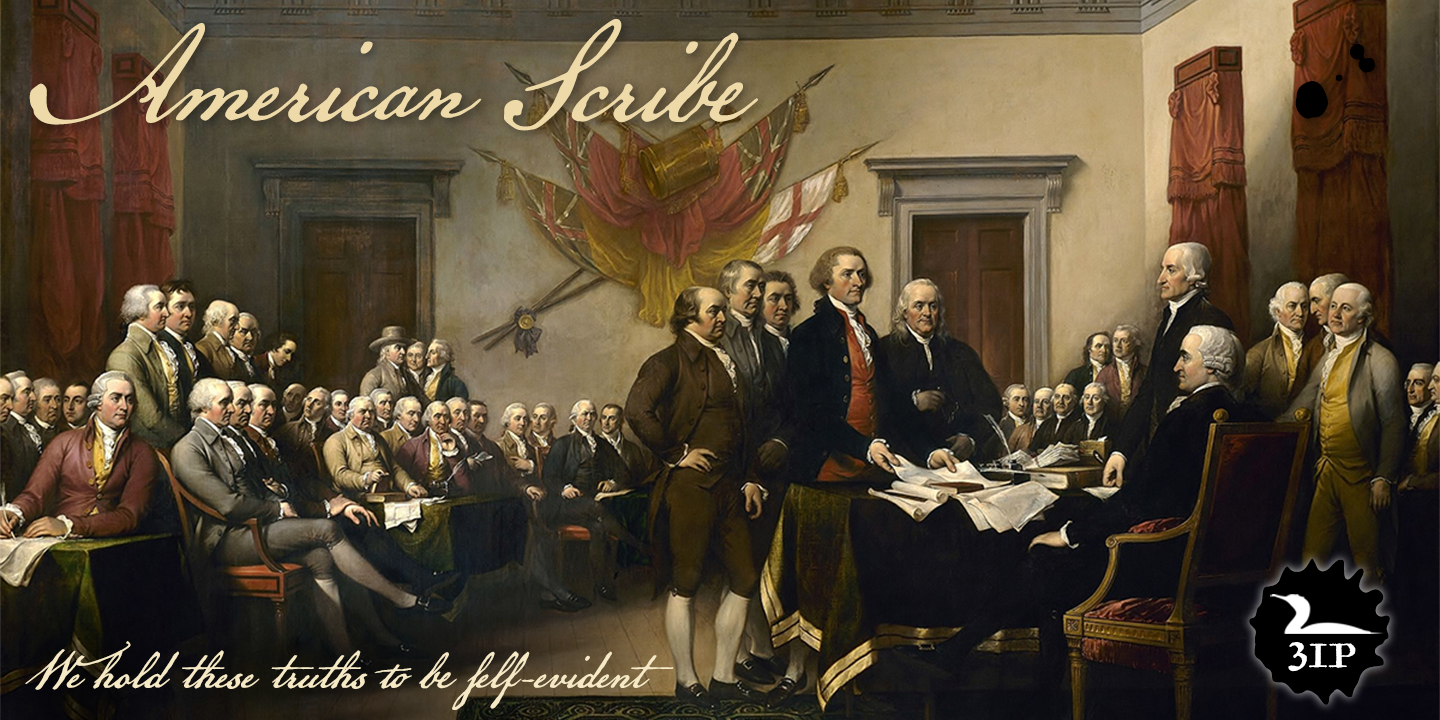
American Scribe Font Free Download is a stylish, handwritten serif typeface that combines elegance and authenticity with a touch of vintage charm. Perfect for logos, branding, invitations, editorial layouts, and packaging, this font captures the essence of classic American design with its distinctive letterforms. American Scribe Font adds a personalized, artistic flair to your creative projects, making it ideal for designs that need a handcrafted, timeless appeal.
With American Scribe Font Free Download, you’ll receive a complete set of uppercase letters, lowercase, numbers, and essential punctuation, offering flexibility for both print and digital applications. Whether you’re designing a rustic logo, crafting a beautiful invitation, or creating packaging for a boutique brand, this font ensures readability while delivering a warm, nostalgic aesthetic.
Bring a classic, personal touch to your designs with American Scribe Font Free Download. Its vintage-inspired style makes it a standout choice for projects that need elegance, warmth, and authenticity.